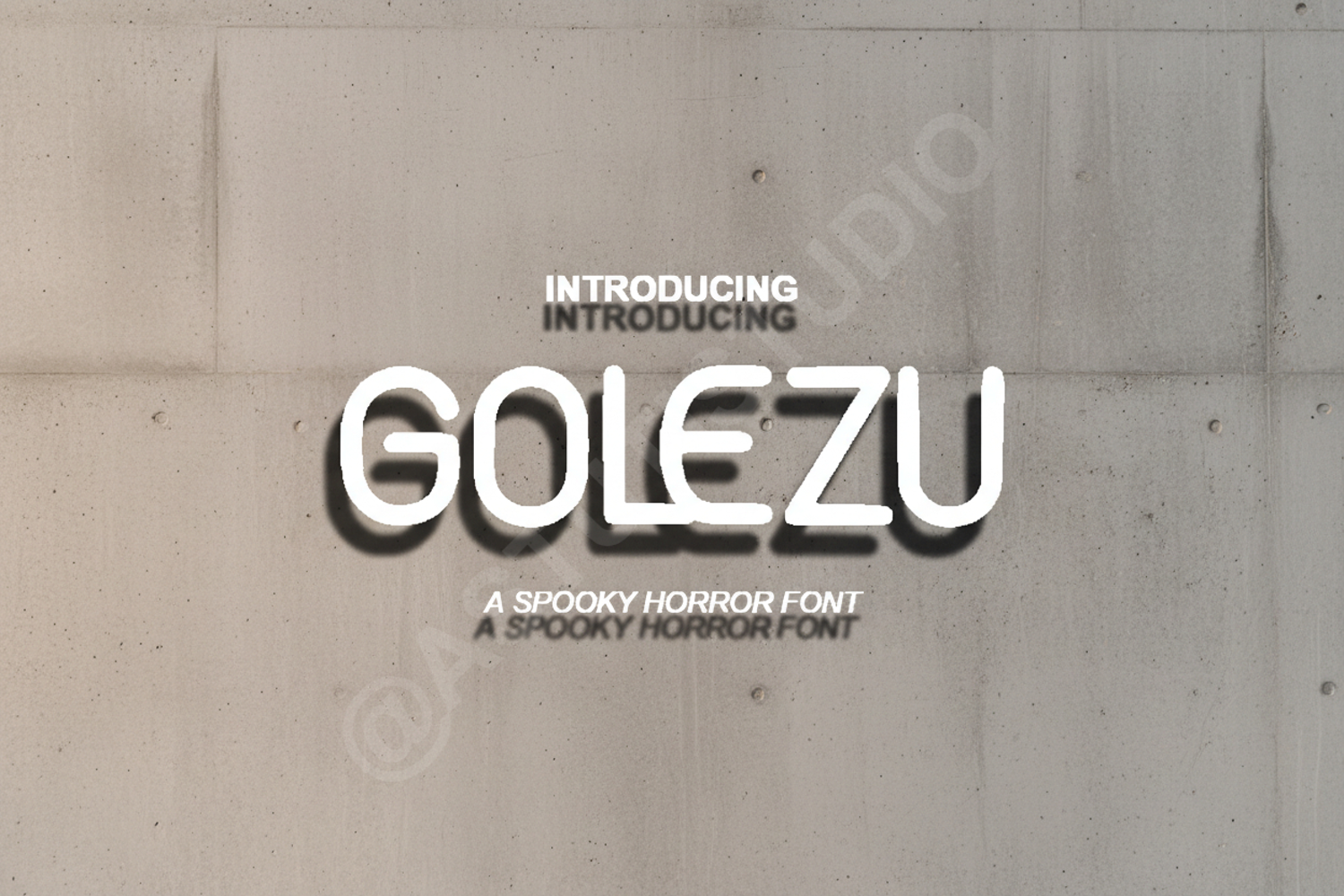
Golezu - Modern Sophisticated Display Serif Font
Golezu
Elevate your design projects with Golezu, a premium display serif font that masterfully blends classic elegance with contemporary flair. Designed for those who seek high-end aesthetics, Golezu features refined strokes and unique character shapes that command attention while maintaining perfect legibility. Whether you are working on a luxury brand identity or a minimalist editorial layout, this font provides the professional edge your portfolio deserves.
- Full set of uppercase and lowercase letters
- Numbers, punctuation, and multilingual support
- High-End Branding: Create memorable logos and visual identities for luxury brands.
- Editorial Design: Perfect for magazine headers, book covers, and sophisticated layouts.
- Wedding Stationery: Add a touch of timeless class to invitations and event menus.
- Social Media: Stand out with bold, stylish typography for lifestyle and fashion content.
- Product Packaging: Enhance the shelf appeal of premium goods with distinctive lettering.